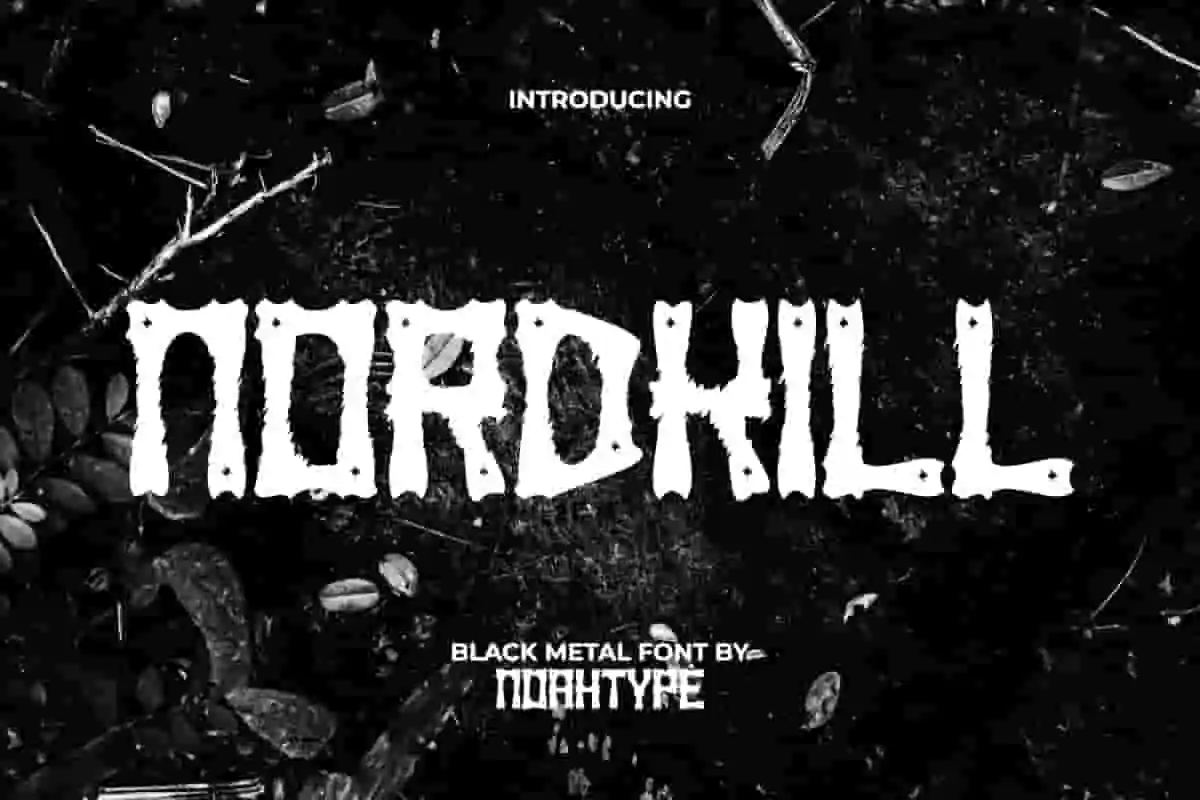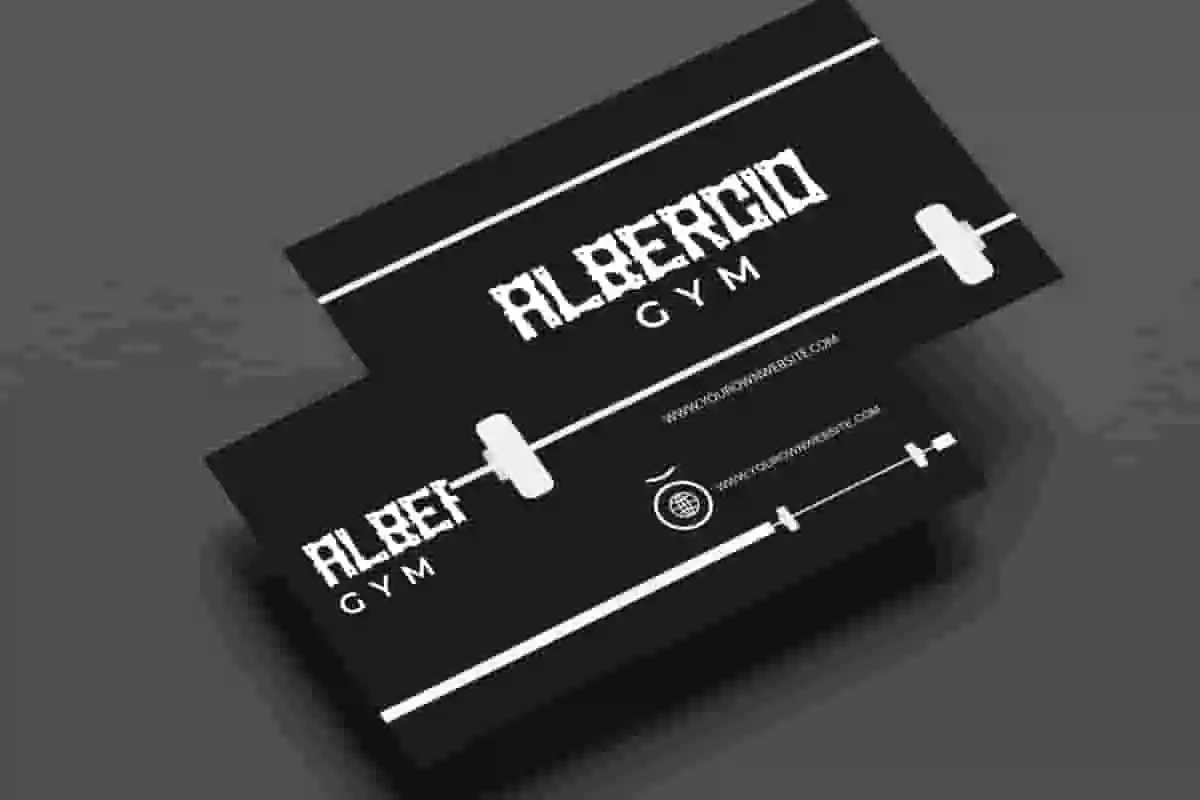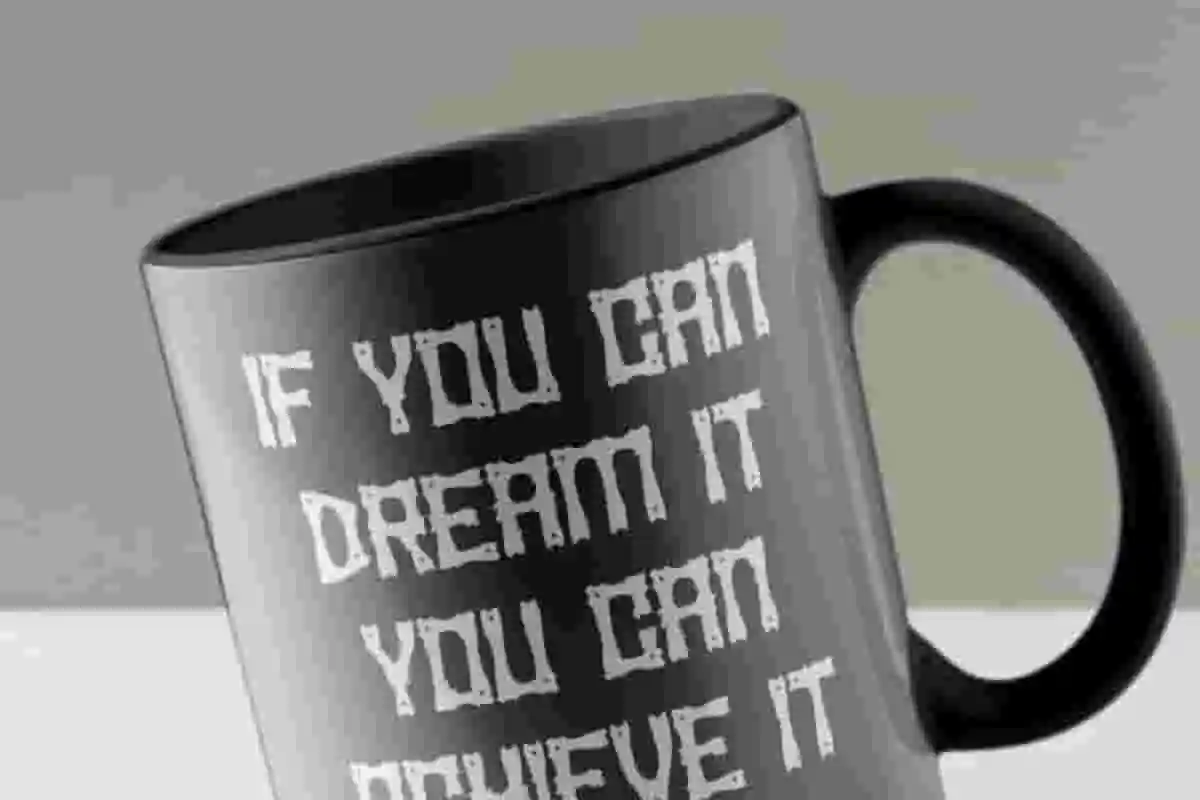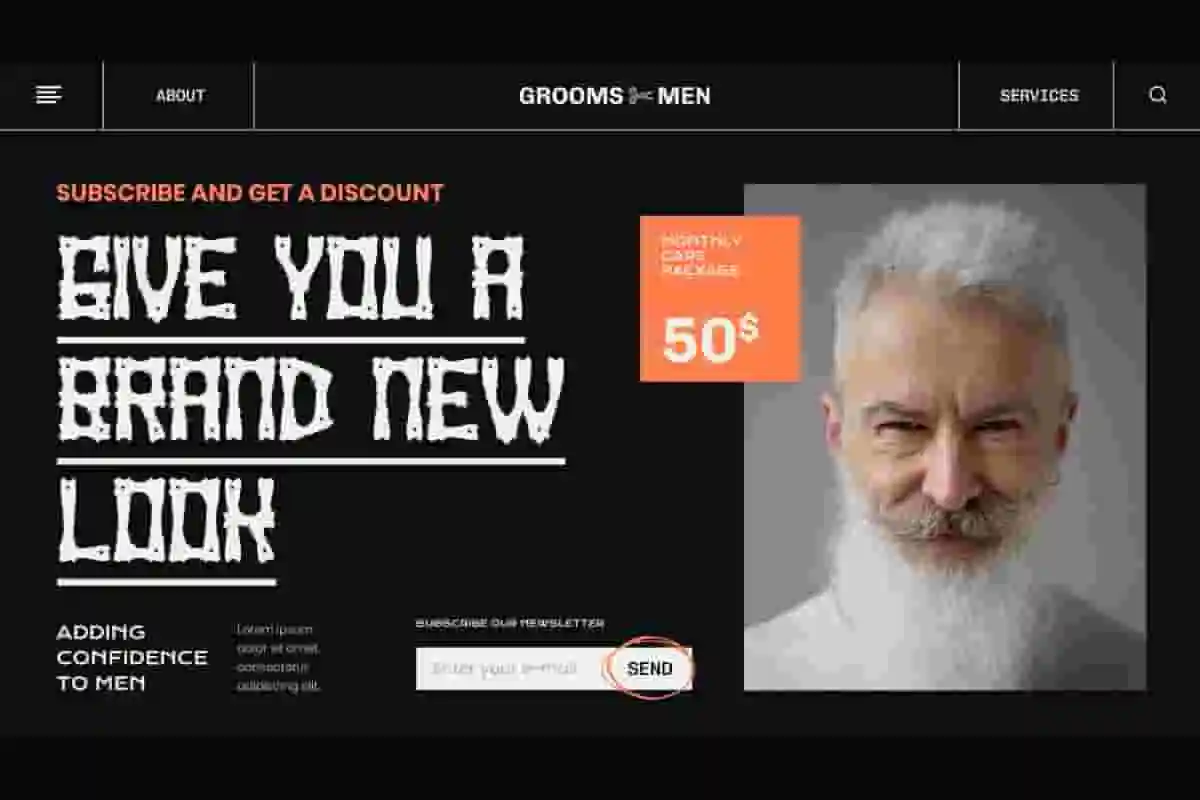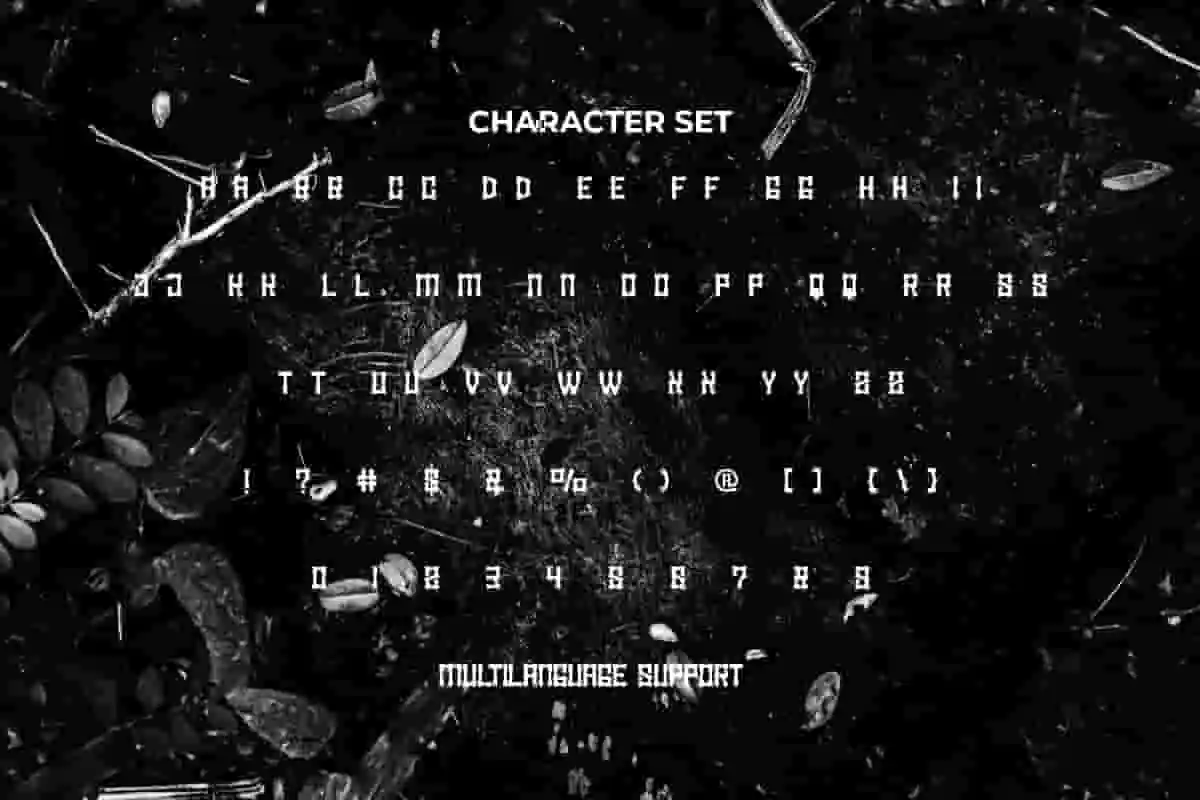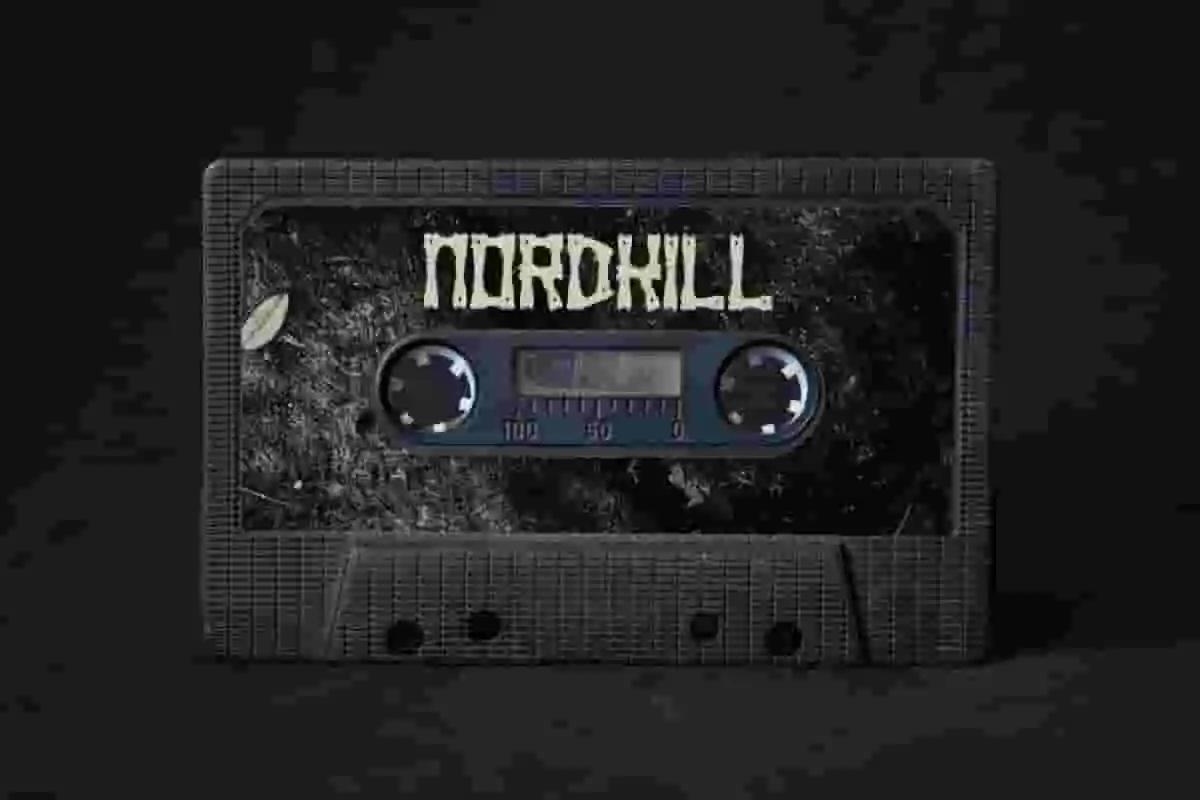
Nordkill Font is a hideous Black Metal font by NoahType. The appearance of this font has a creepy impression and can be paired with other types of fonts. It will be awesome for any designs, such as custom design, brand image, poster, label, invitation, cover, marketing material, menu, printing, product packaging, quotes, signage, website, and many more!
Nordkill Font includes full set of ALL CAPS for Uppercase and Lowercase Basic Characters, Numerals, Punctuation, and Symbol. This horror font will make your design cool and also a perfect choice for many industries, such as game, movie, comic, music, accessories, advertising, art, café, event or festival, fashion, printing, publishing, etc.